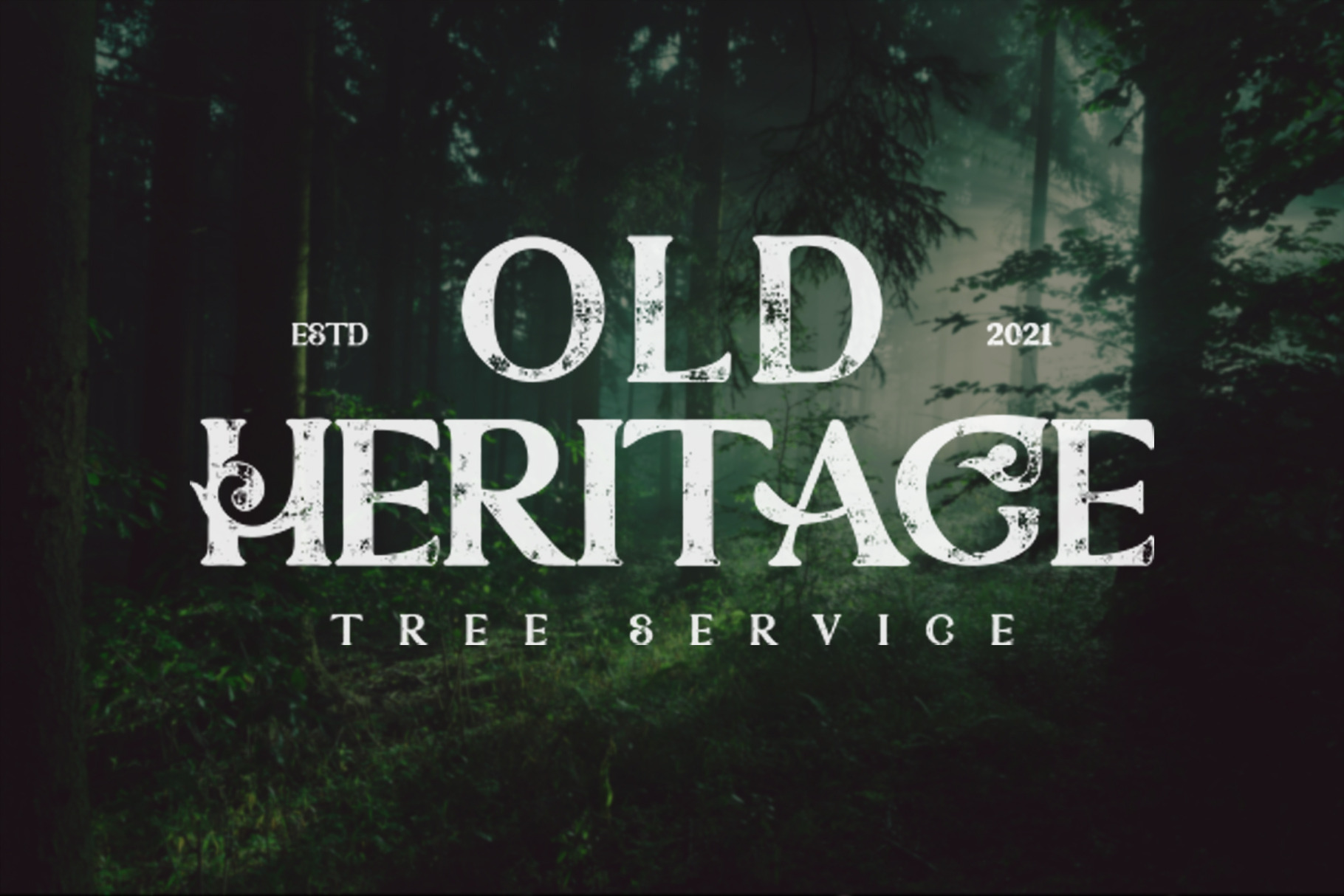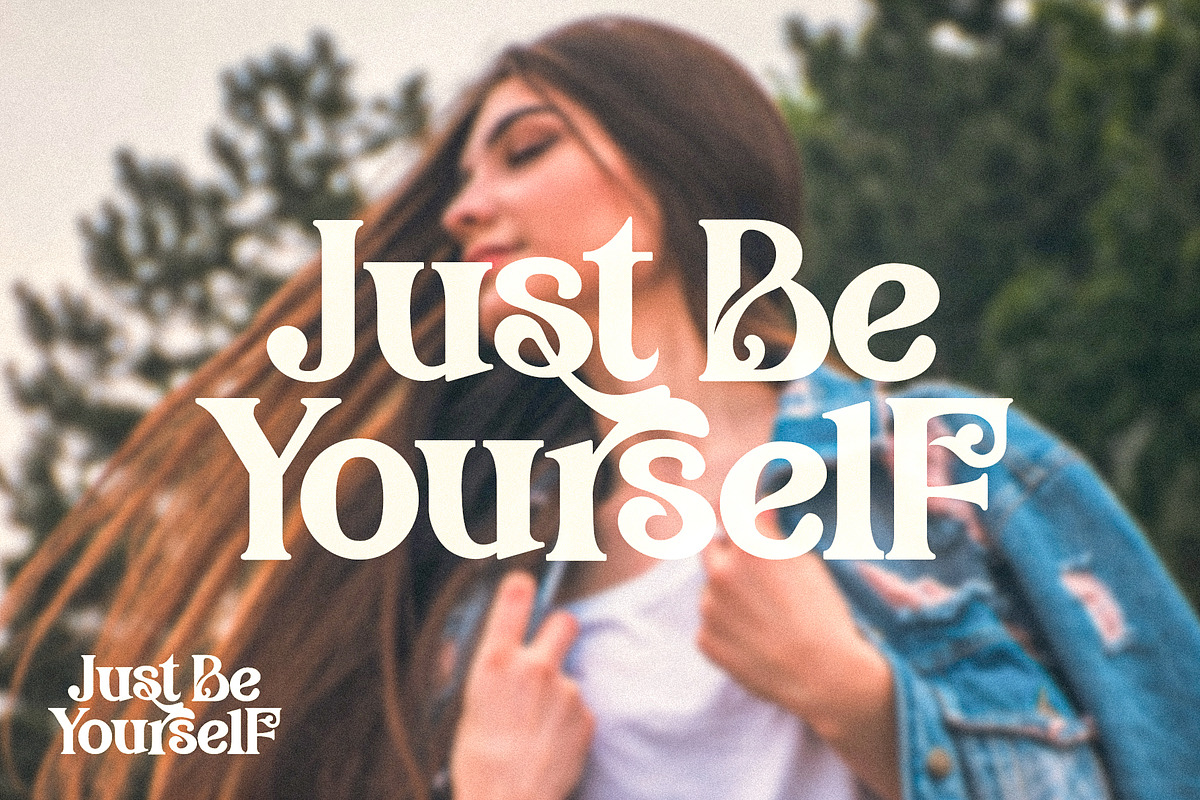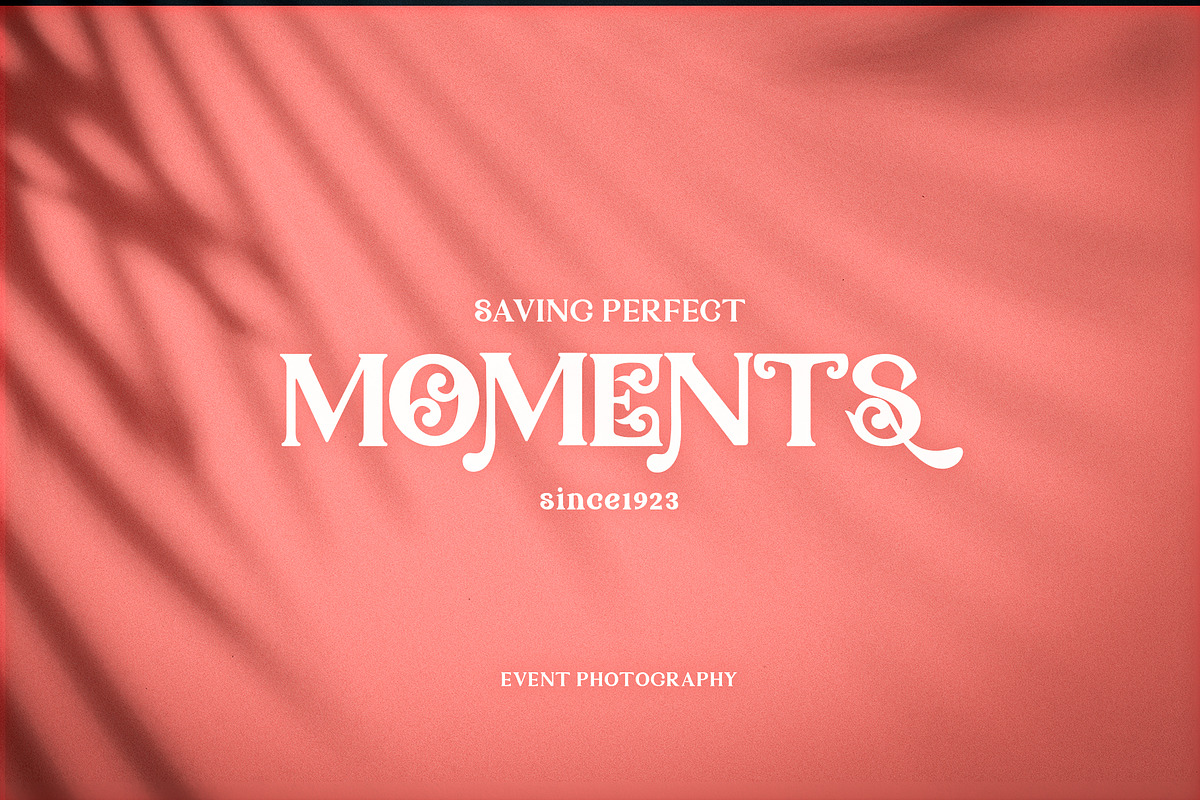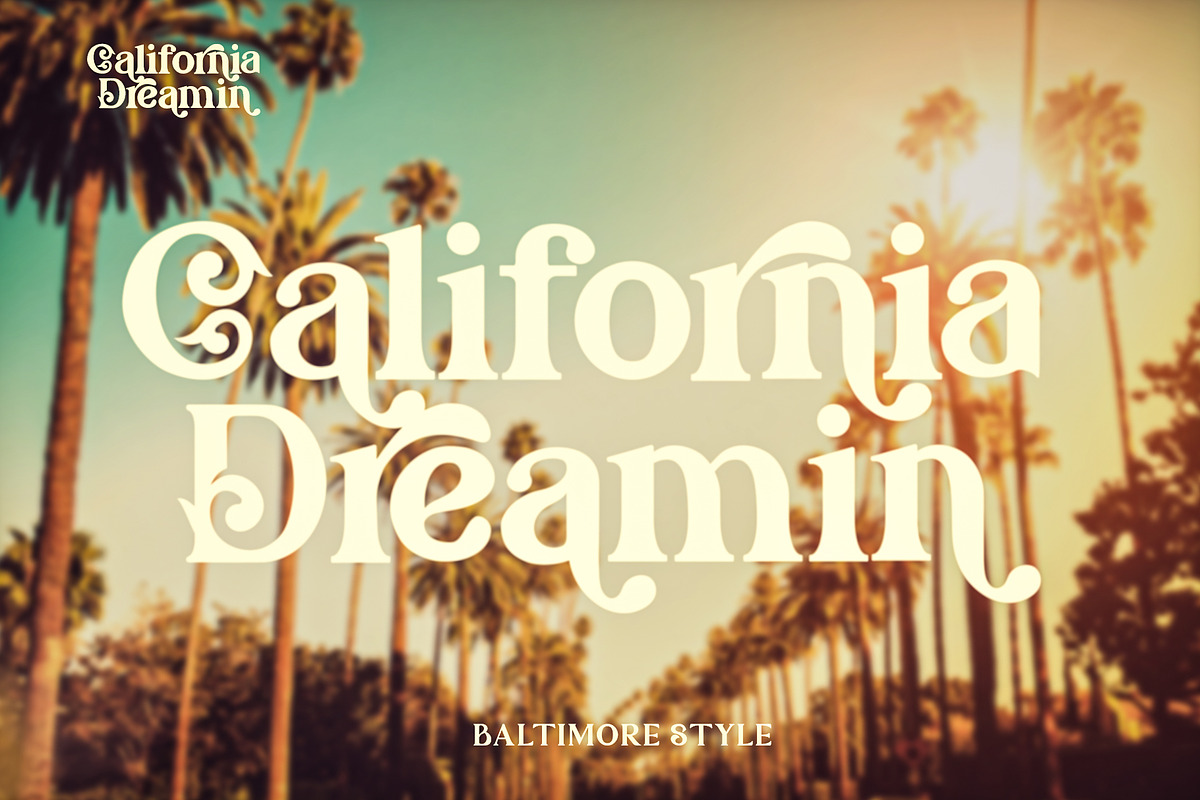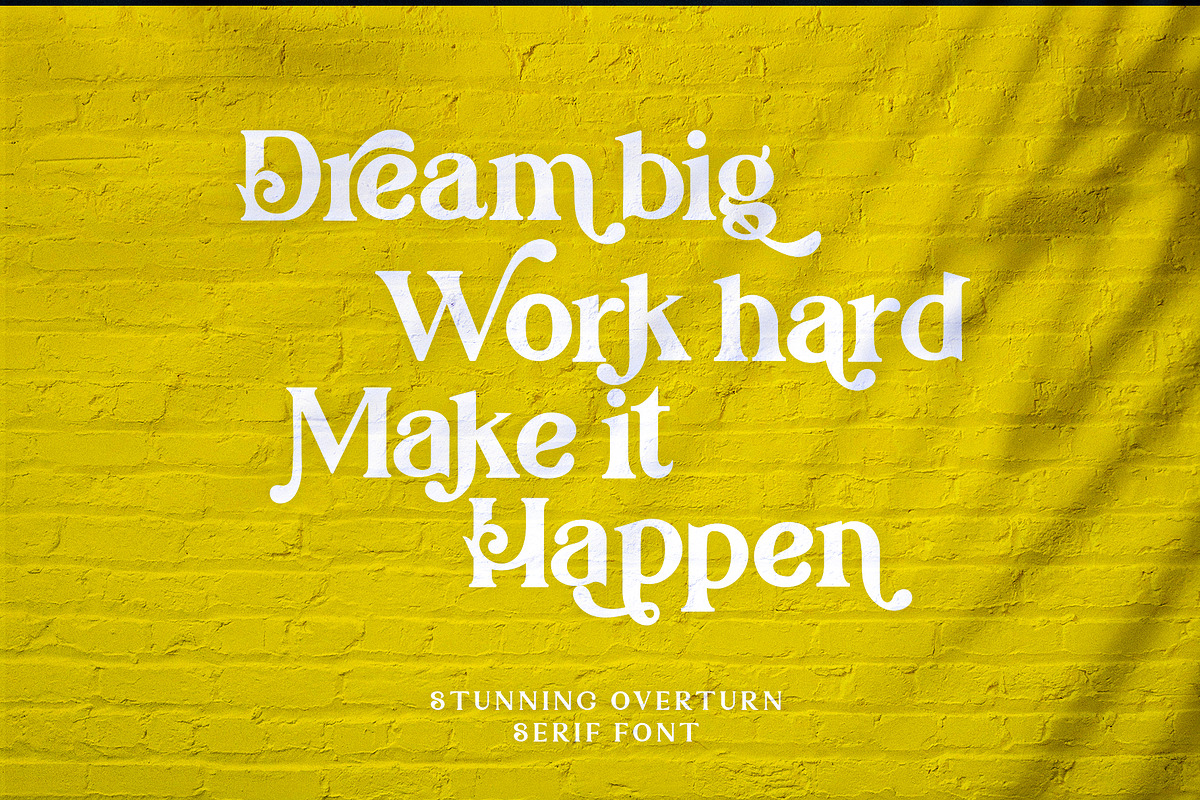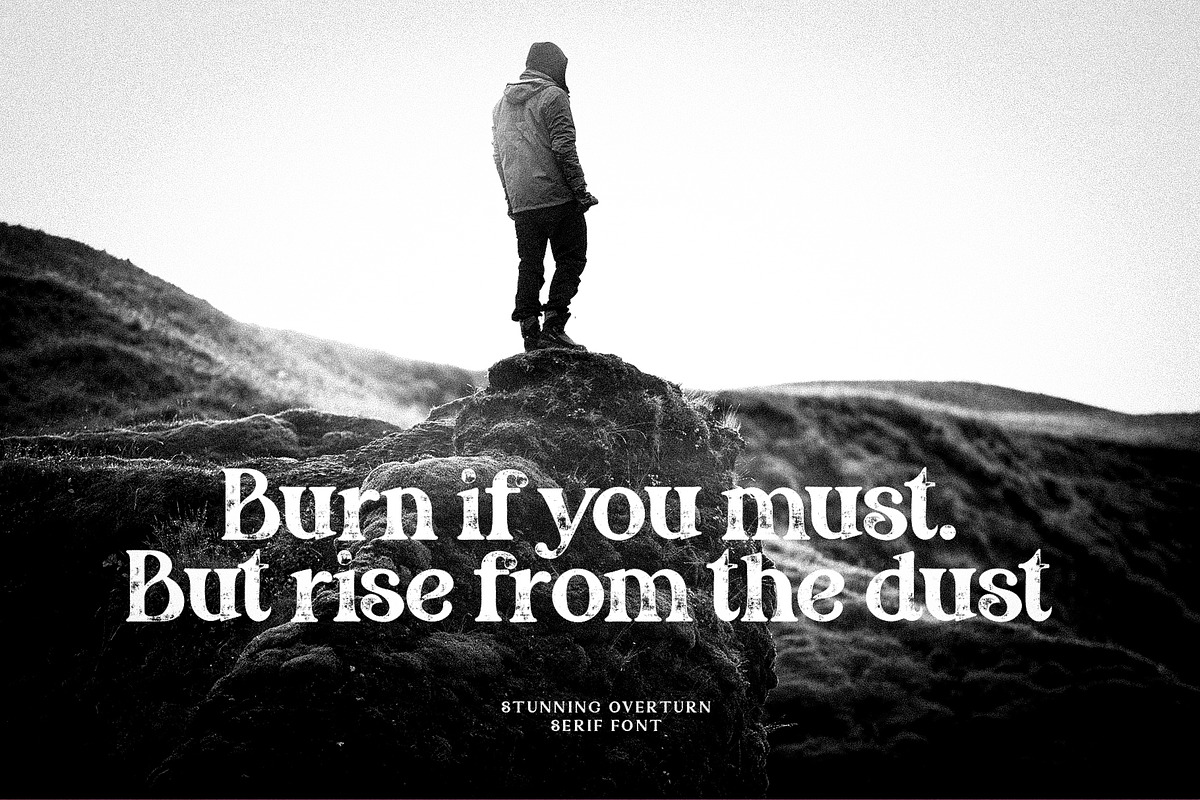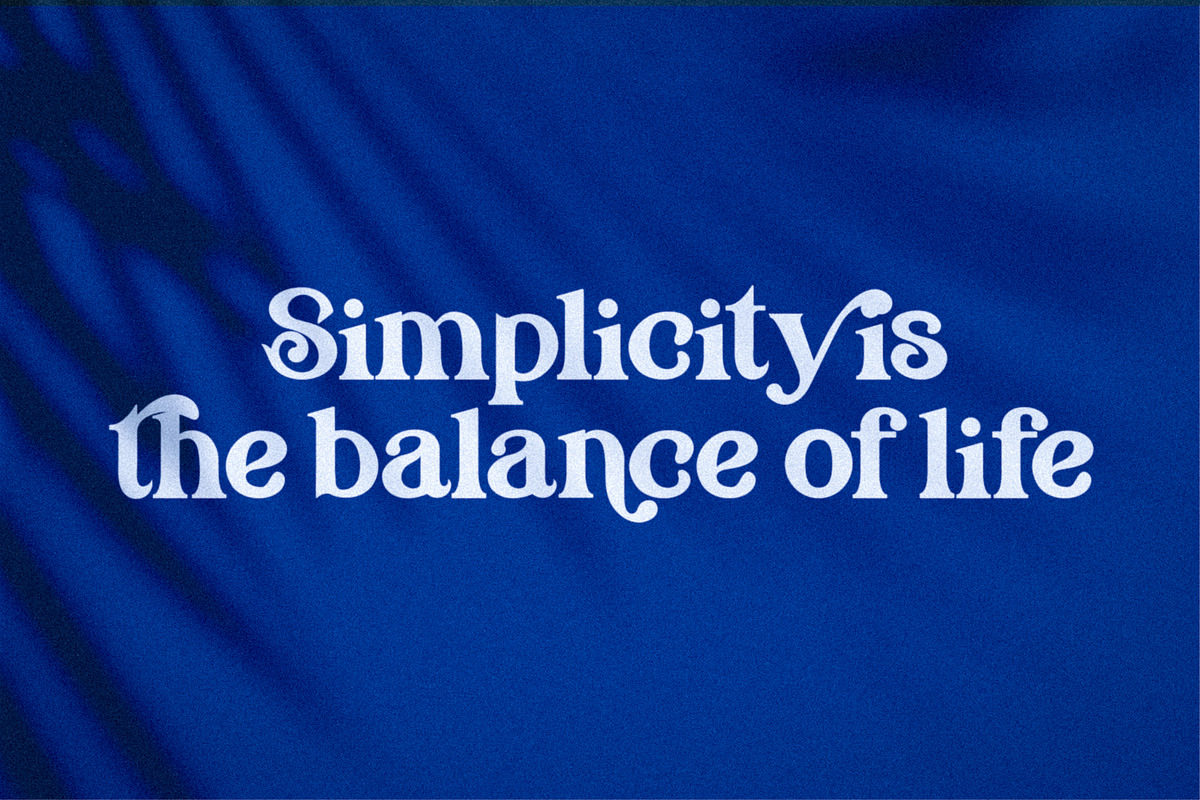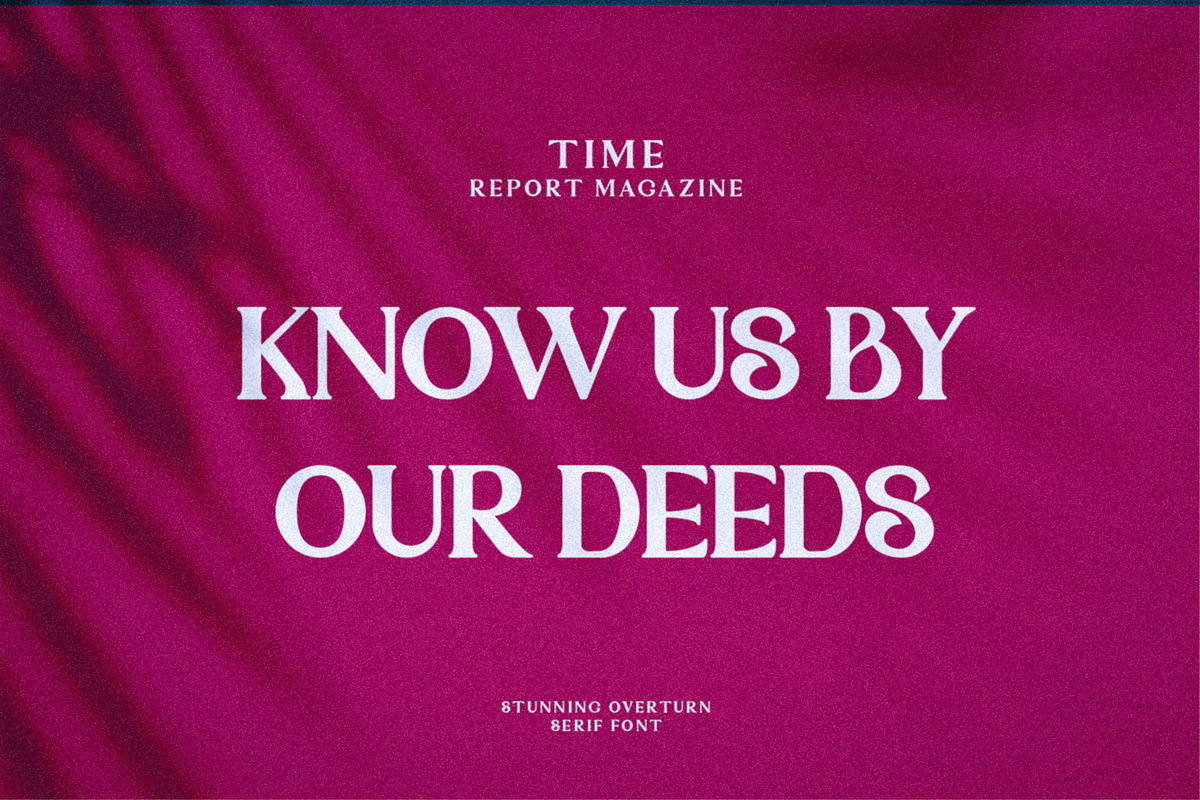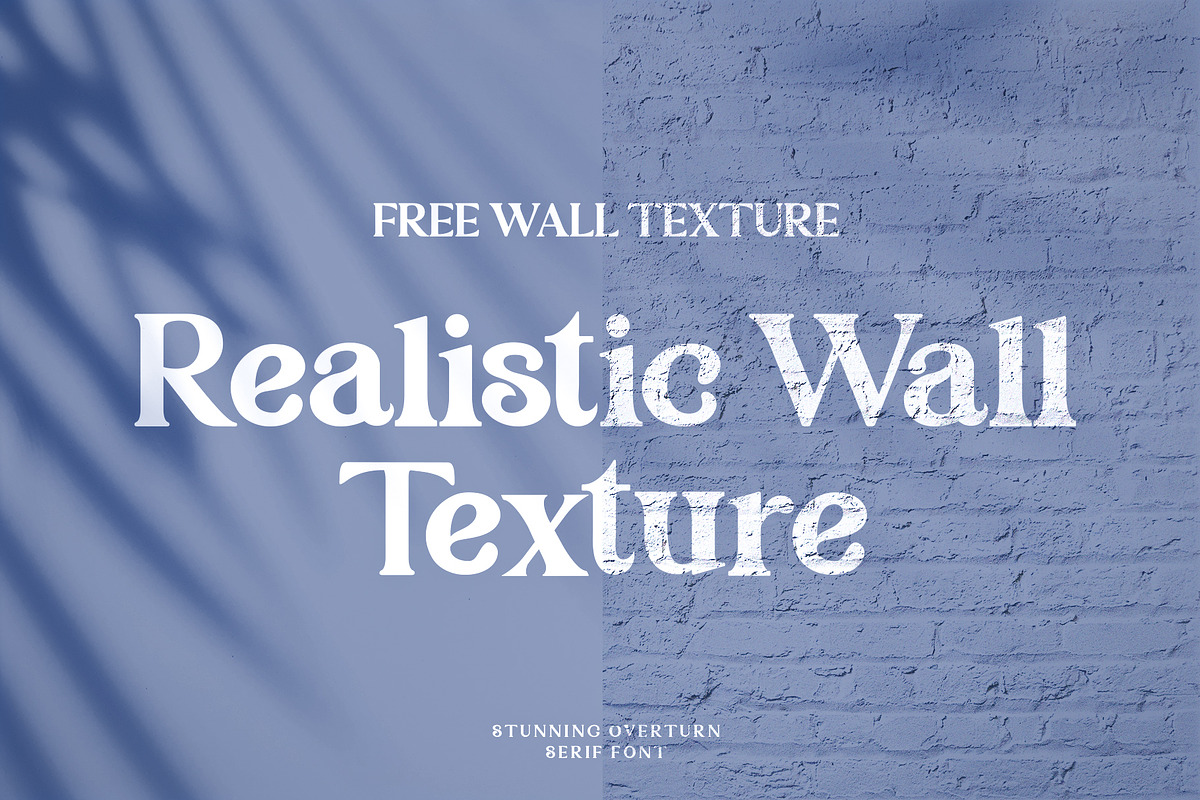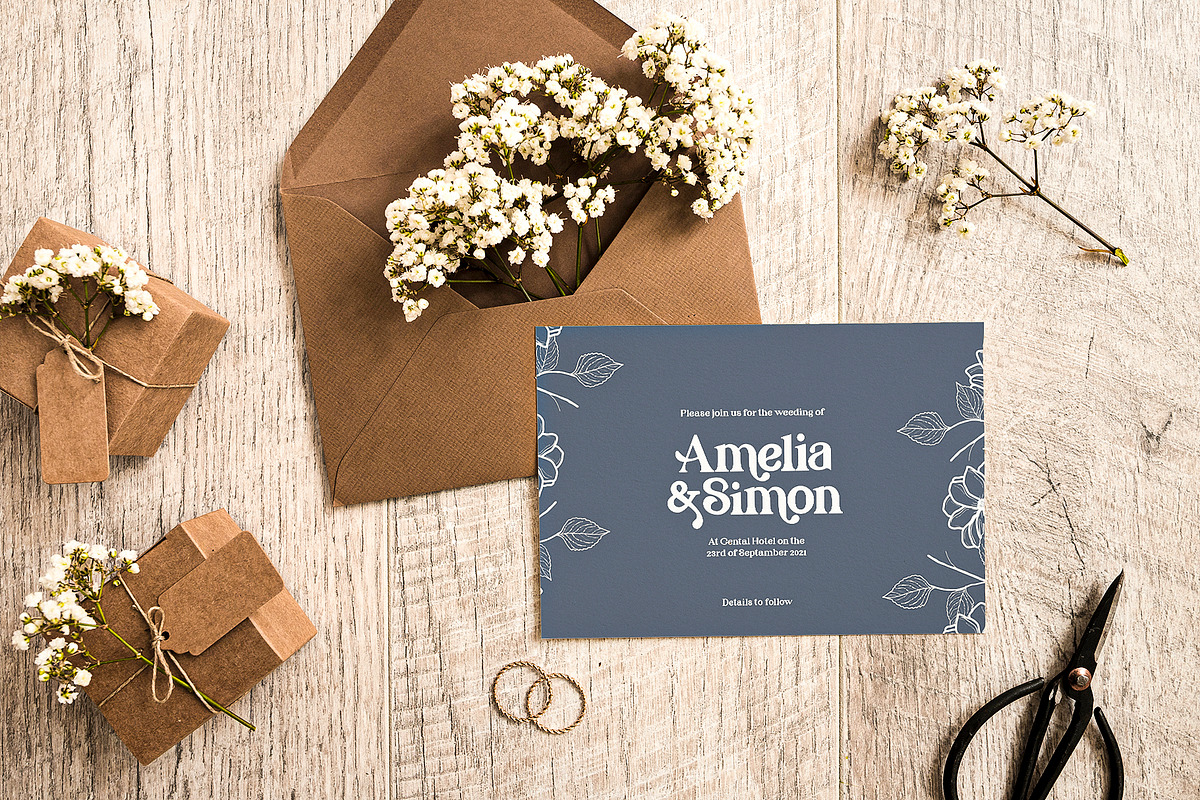
StunningOverturn Modern/Vintage Font
Introducing Stunning Overturn - A brand new "three-faced" bold serif with both modern, vintage and classic curves.
A Three-faced beauty : Classic, Modern or Vintage
If you are going Vintage Look : Select the letters you like from the large variety to get the vintage look you are after form font style RegularVintage, BoldVintage, LightVintage. Vary between a light and heavy vintage look based on how many letters you alter.
If you are going Classic Look : Just select the regular type to get the main classic serif font style and choose between Regular, Bold, Light to get the variety you are looking for.
If you are going Modern Look :Just type with regular letters and play with the Alt Letters to add even more class to your designs.
Easy To Change Decorative Letter Style